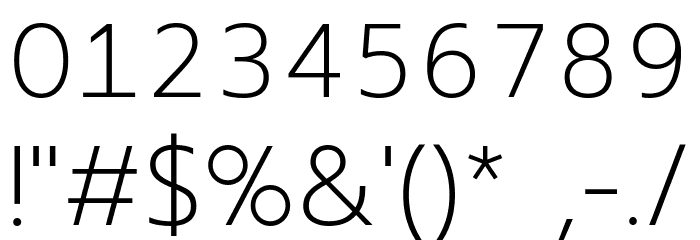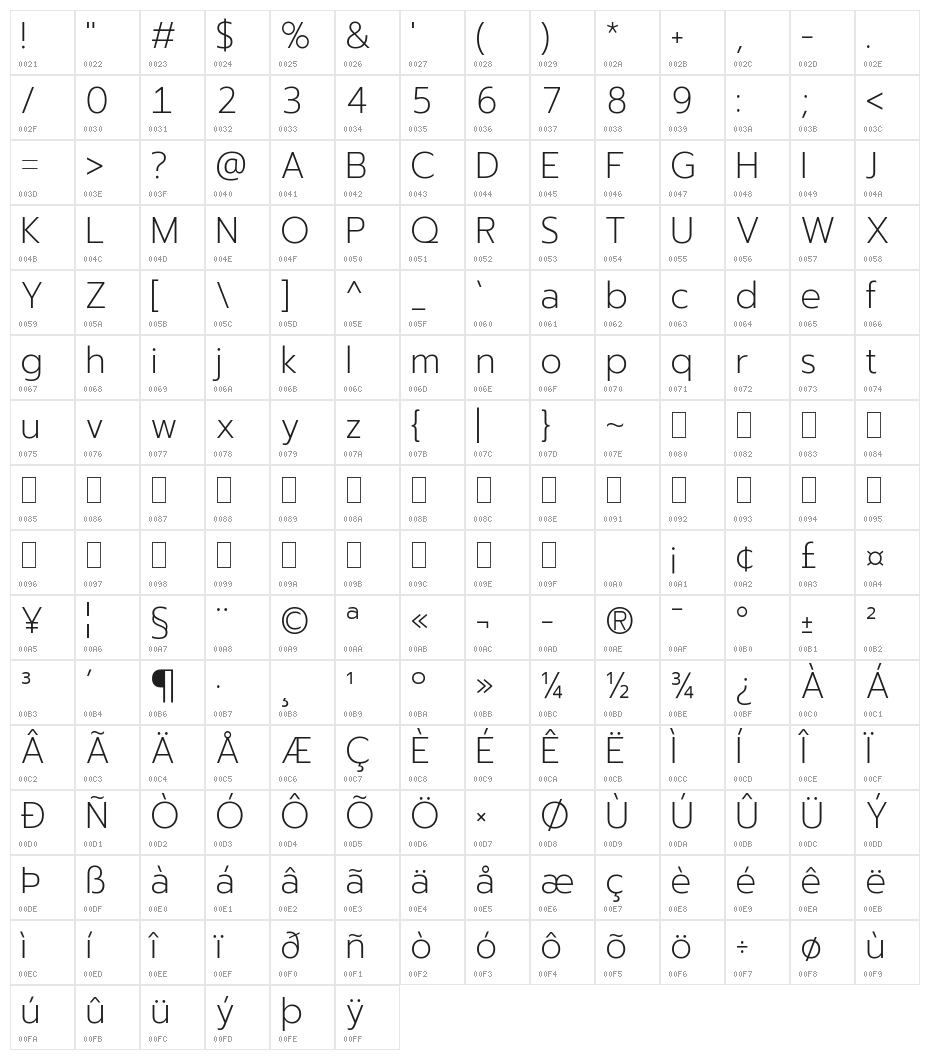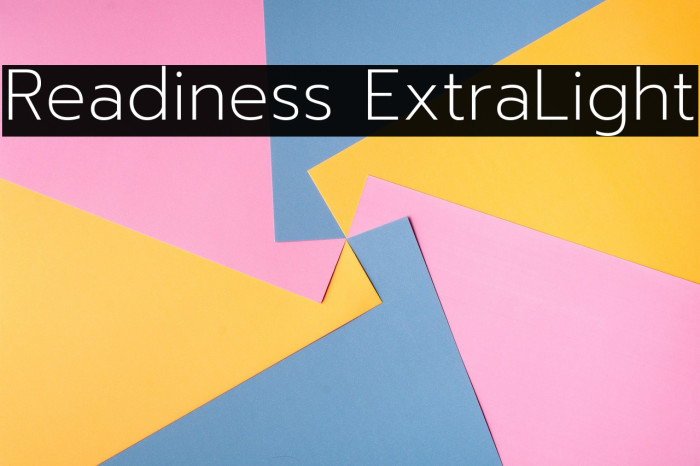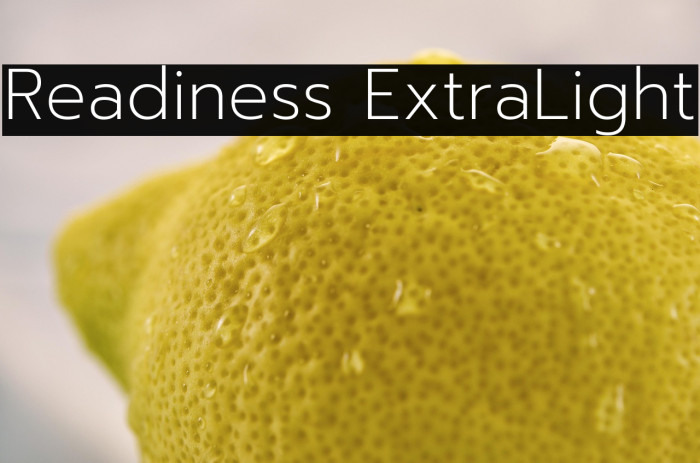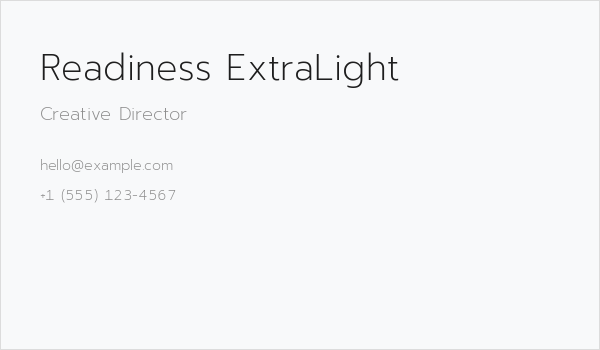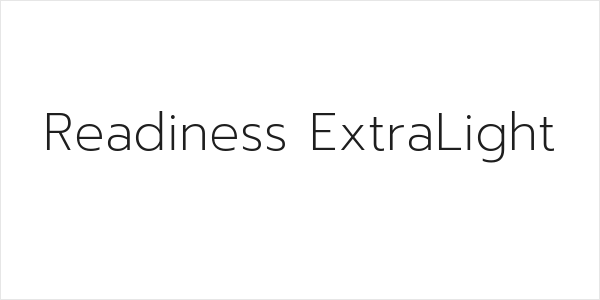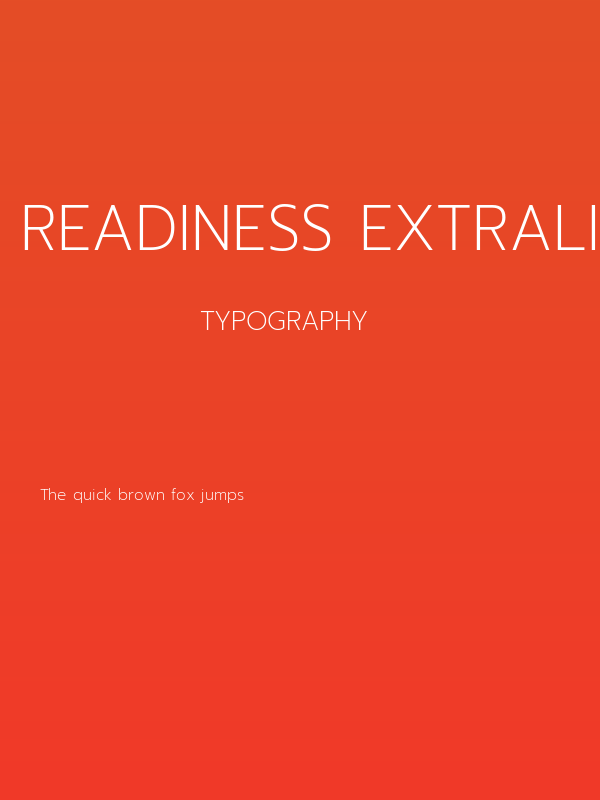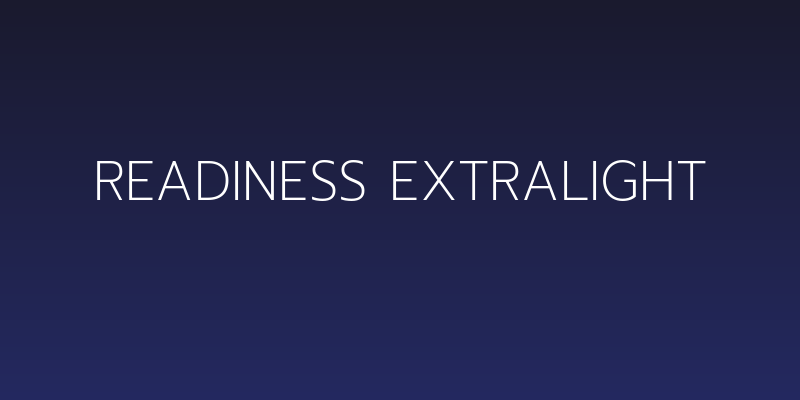
Readiness ExtraLight Font
Readiness ExtraLight Description
This font presents a sleek and modern aesthetic with its extra-light weight, offering a clean and minimalistic appearance. The characters are crafted with precision, featuring smooth curves and straight lines that create a harmonious balance. The uppercase and lowercase letters maintain a consistent style, while the numerals and special characters are designed to complement the overall look. Its simplicity and elegance make it versatile for various design applications, providing a contemporary feel that is both professional and approachable.